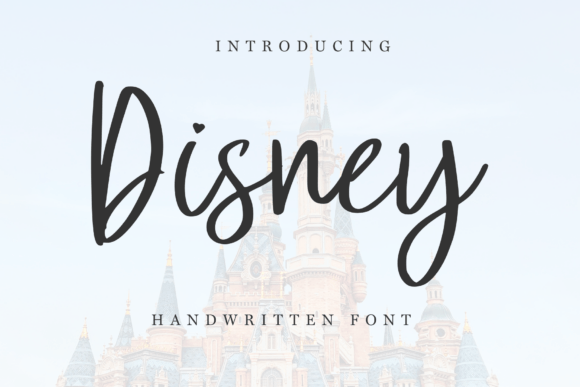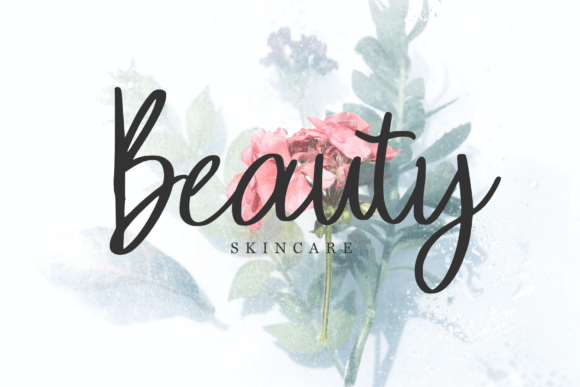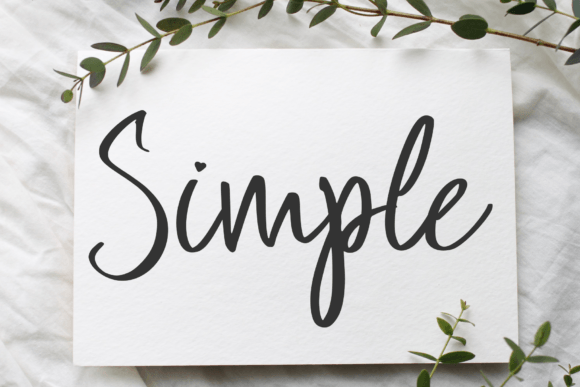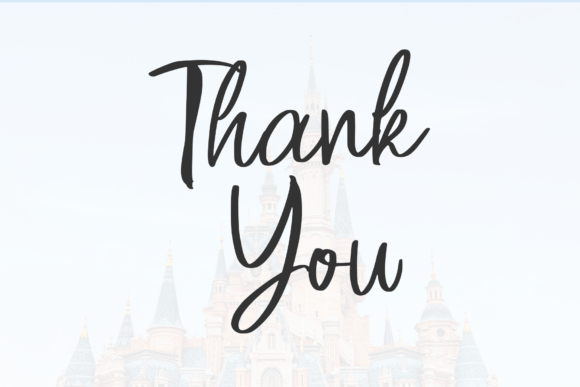
The Magic of Disney Font: Elevating Your Designs with Joy and Elegance
Have you ever found yourself brainstorming ideas for a new project, only to be struck by a spark of inspiration that sends your creativity soaring? For designers, those ‘aha’ moments are the best – and often, the right font can be the key to unlocking that magic. One such font that has captured the hearts of many is the Disney Font, a simple yet elegant handwritten typeface that exudes a sense of joy and sophistication.
Designed to add a touch of style and whimsy to your designs, the Disney Font is perfect for a wide range of projects, from logos and wedding invitations to branding and marketing materials. Its versatility and unique character make it a valuable asset for designers looking to elevate their work and leave a lasting impression on their audience.
Disney Font Key Features
- Font Family: Disney Font is a custom-designed font family that includes multiple styles and weights, making it versatile for various applications.
- Unique Characteristics: The Disney Font is known for its distinctive, whimsical design, with features such as rounded edges, flowing lines, and a playful feel.
Disney Font Review
The Disney Font is a custom font created by Disney for use in their branding and marketing materials. It’s a unique and recognizable font that has become synonymous with the Disney brand. Here’s my honest review:
The Disney Font has a distinct and memorable design that immediately conveys a sense of whimsy and fantasy. It’s perfect for creating a magical and immersive experience for customers.
The font is highly legible, even at small sizes, making it suitable for use in a variety of applications, from print materials to digital displays.
The Disney Font has a wide range of styles and weights, allowing designers to choose the perfect fit for their project.
The font may not be suitable for all types of projects, particularly those that require a more modern or sleek aesthetic.
The Disney Font can be overused, and its familiarity can make it feel tired or clichéd if not used thoughtfully.
Overall, the Disney Font is a unique and recognizable font that can add a touch of magic to your design projects. However, its limitations and potential overuse should be carefully considered before using it in your work.
Getting the Most Out of the Disney Font
To get the most out of the Disney Font, consider the following tips:
- Use the font for whimsical or playful designs.
- Pair the font with other fonts for a unique look.
- Experiment with different font sizes and styles.
The Disney Font is commonly used for:
- Cartoon or animation projects.
- Whimsical or fantasy-themed designs.